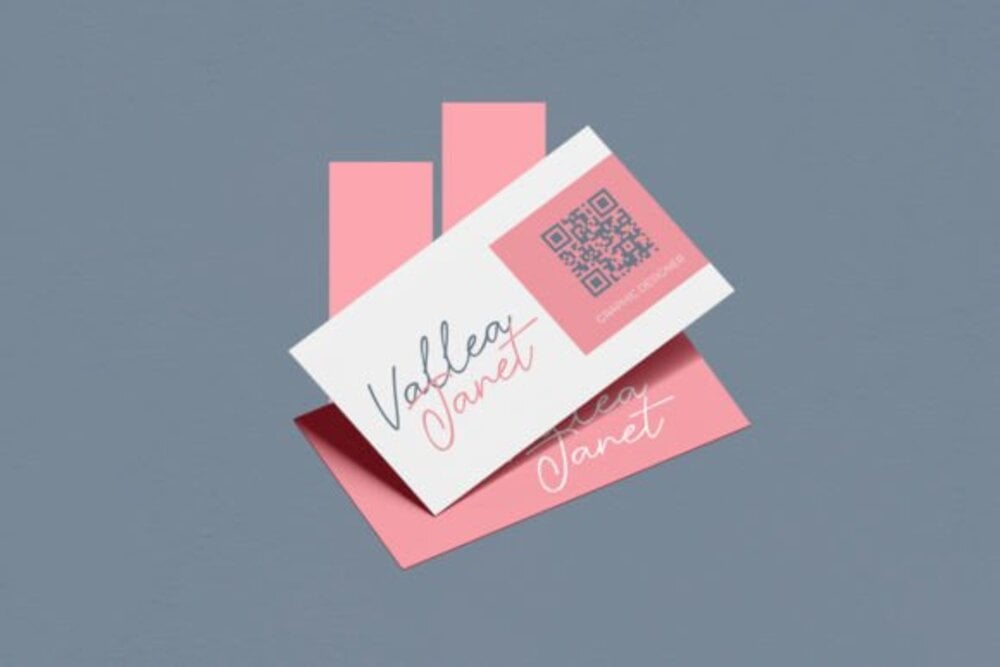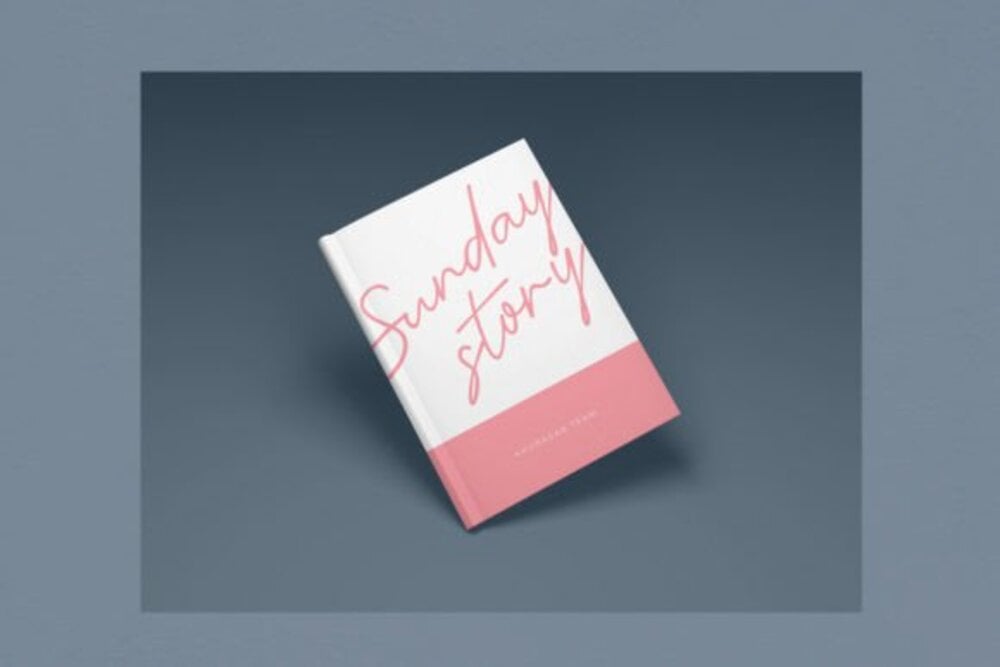
Sunday April font
Sunday April is a charming and slightly whimsical serif font. Its rounded serifs and friendly letterforms create a warm and inviting feel. Perfect for children’s books, greeting cards, and casual branding, Sunday April adds a touch of playfulness and nostalgia to any project. It’s a versatile font that works well for both display and body text, offering a comforting and approachable aesthetic.